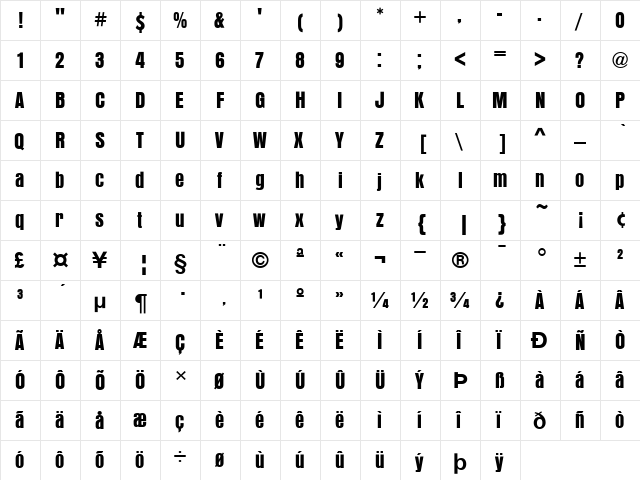
Anzeigen Grotesk T Regular
Regular · by URW  ·
Design Context for Anzeigen Grotesk T Typeface
Anzeigen Grotesk T has the quiet confidence of well-executed sans-serif typography: versatile, unobtrusive, and dependable at any size.
Font Pairing: Works well alongside a characterful serif or display font that can carry the expressive load while Anzeigen Grotesk T handles the functional copy.
Pro Tip: Use Anzeigen Grotesk T for UI labels, navigation, and short-form body copy where clean legibility is the priority.